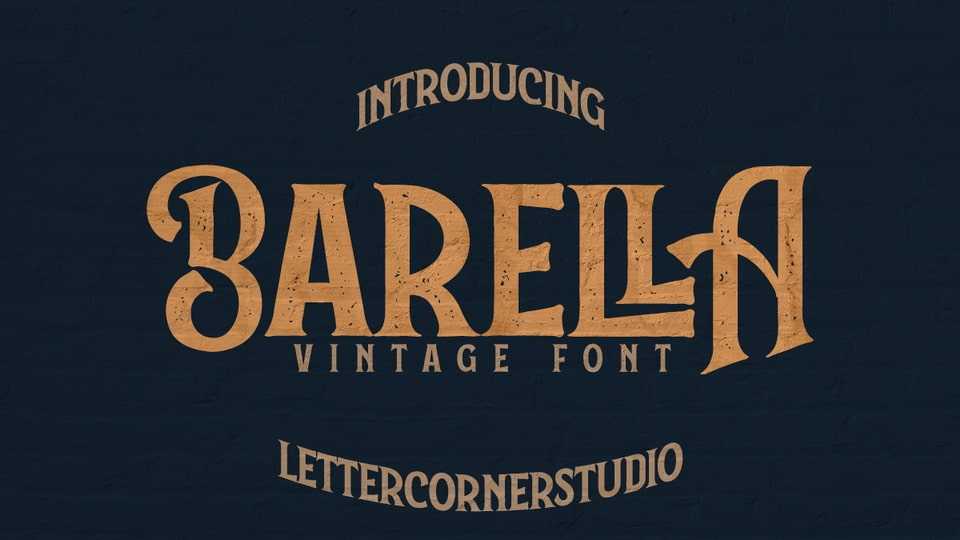
Download Barella font, a vintage display typeface that reads as strong, confident, and dynamic, designed to add tons of nostalgic vibe to your designs.
Designer: Lettercorner Studio